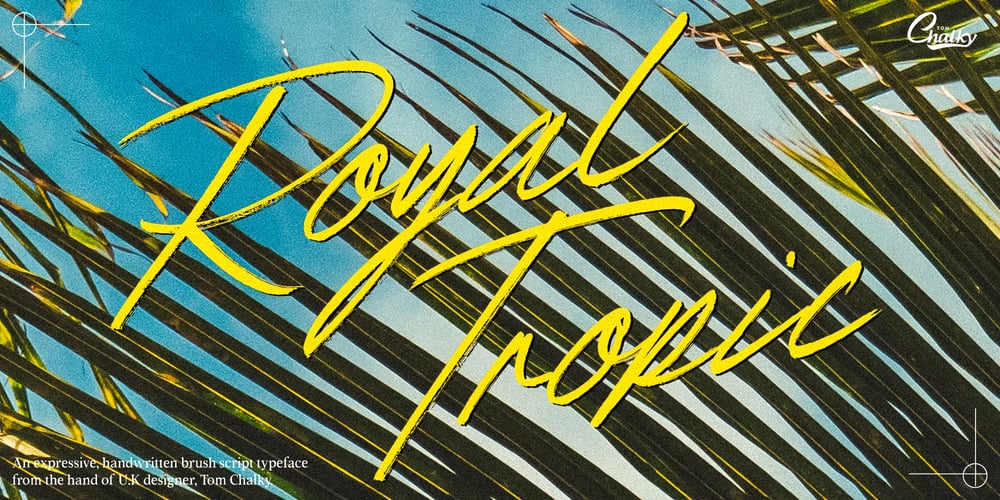
Royal Tropic Font Family was designed by Tom Chalky and published by Tom Chalky. Royal Tropic contains 2 styles and family package options. Proudly Introducing ‘Royal Tropic‘ – An expressive, quick dry stroke, signature style brush script font. With multilingual support, ligatures, and an extra slanted style. Royal Tropic is great for when you want to grab attention, especially within print design; Packaging, branding, posters, book cover design, etc.The goal was to create a fast-flowing, legible script font with enough personality to take center stage and shine, and I think the end result has delivered exactly that!TIP: Through trial and error, I feel Royal Tropic works best with clean serif/sans-serif fonts. Any other ‘handwritten’ fonts can disturb the rough/clean contrast, taking with it some of the impact of your design.